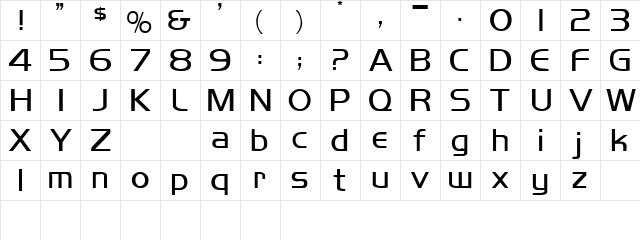
Mikity Regular
Design Context for Mikity Typeface
Mikity is a composed and adaptable typeface that performs quietly and consistently across a wide range of design contexts.